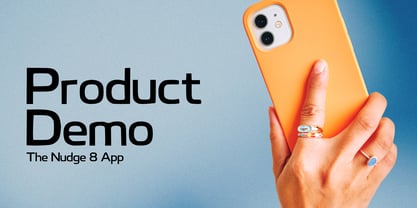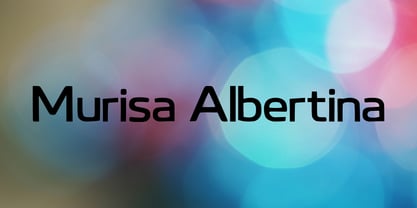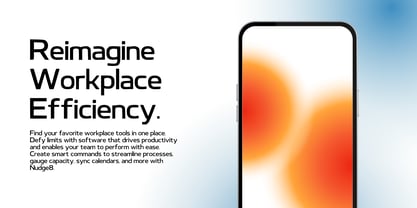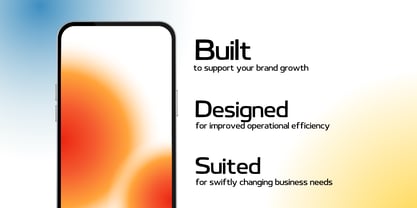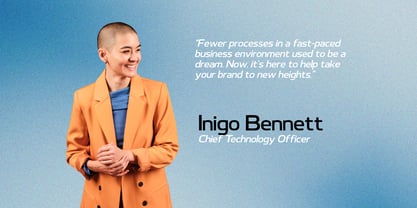
Murisa Albertina
Murisa Albertina – Modern Geometric Sans Serif
Introducing Murisa Albertina, a sleek, contemporary sans-serif typeface crafted with precision and balance. Characterized by its clean geometric lines, smooth curves, and bold structure, Murisa Albertina delivers an effortless blend of modern elegance and maximum readability.
Engineered with exceptional detail, this typeface features enhanced diacritic support tailored specifically for Eastern European languages. Every accent, caron, and diacritical mark is meticulously positioned to ensure impeccable kerning, aesthetic harmony, and seamless legibility across multi-language compositions.
Whether you are designing striking headlines, high-impact branding, futuristic editorial layouts, or clean UI designs, Murisa Albertina brings a strong yet sophisticated presence to your visual creative projects.
Key Features:
Refined Geometric Design – Clean, modern, and versatile character shapes.
🌍 Extended Language Support – Optimized for Eastern European languages with precise accent placement.
🎯 Perfected Diacritics & Kerning – Enhanced positioning for seamless typographic hierarchy.
📸 High-Impact Versatility – Ideal for logos, headlines, posters, packaging, branding, and digital media.
🔤 Complete Character Set – Includes uppercase, lowercase, numbers, and key symbols